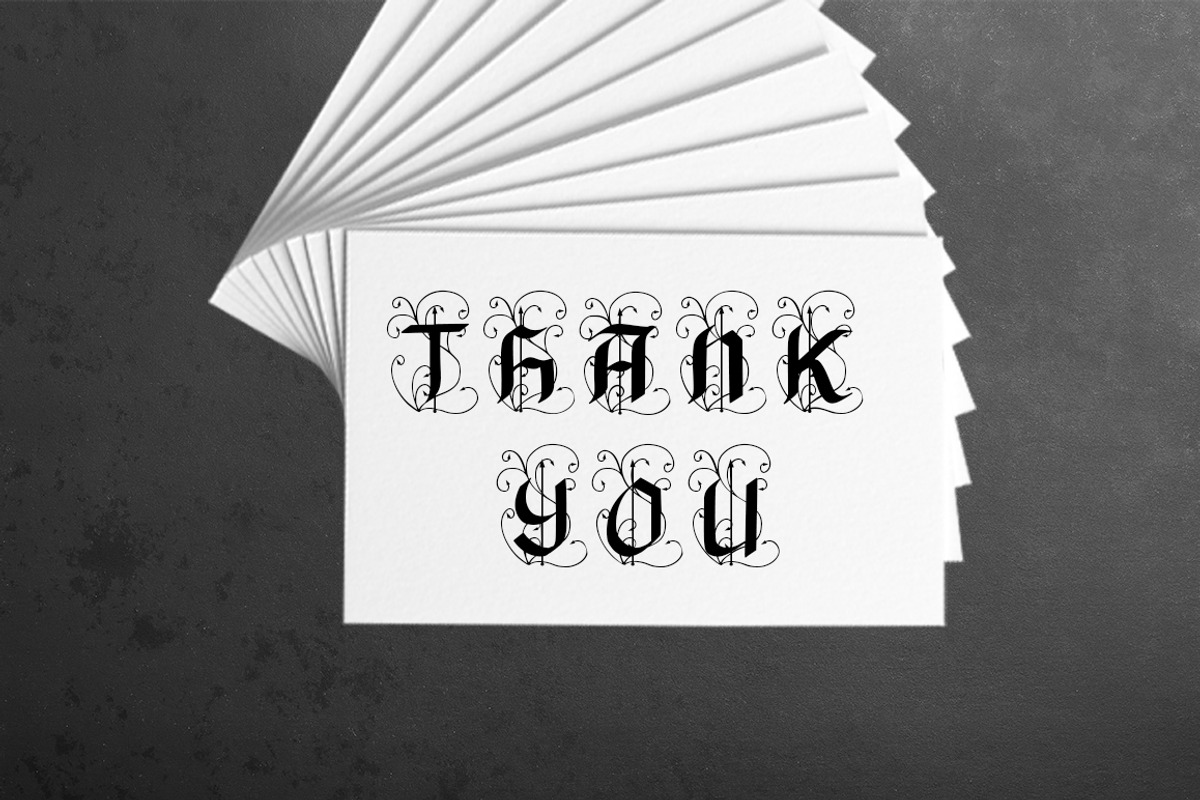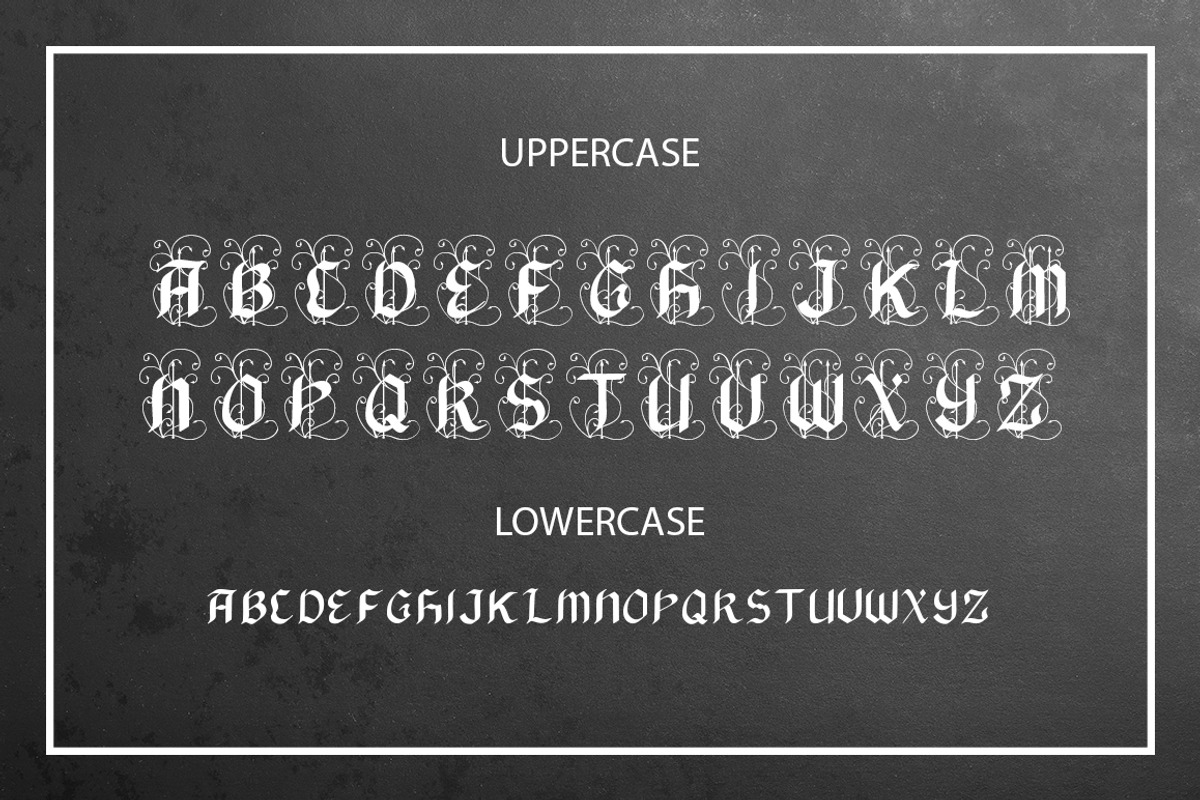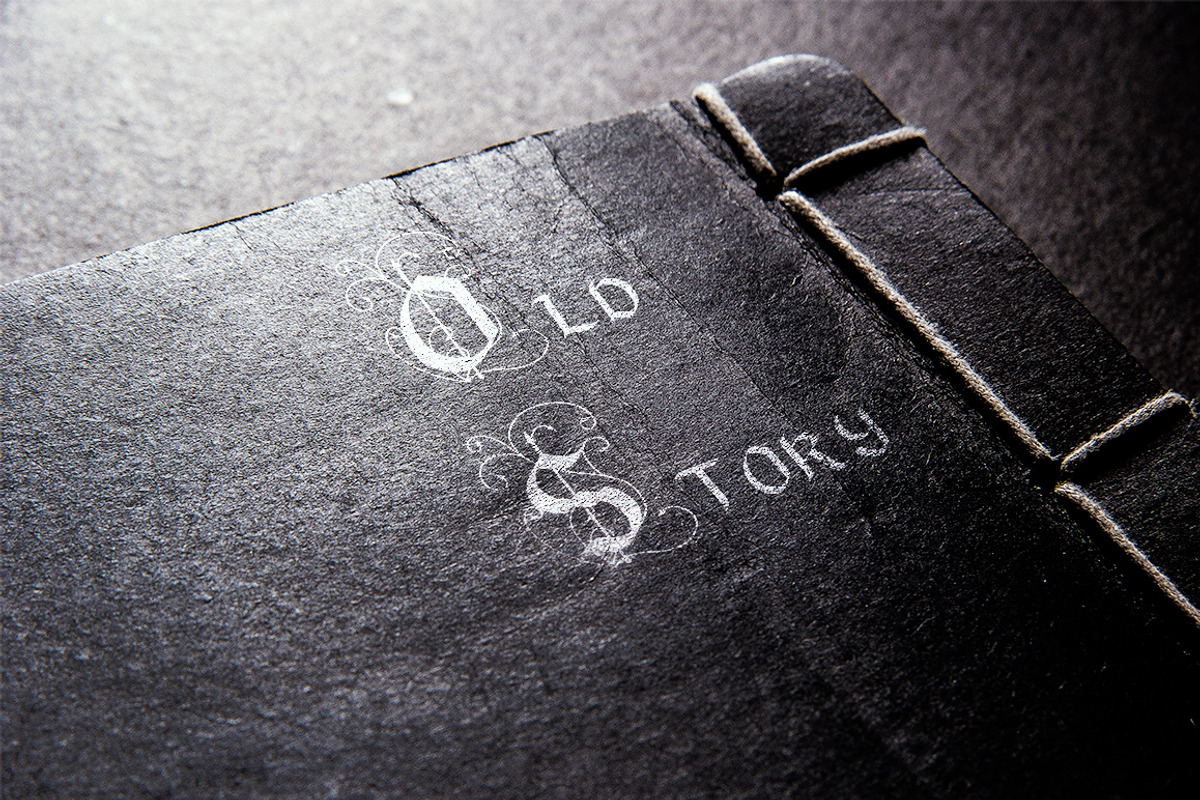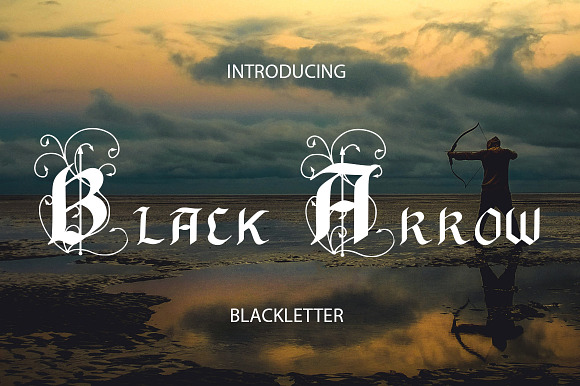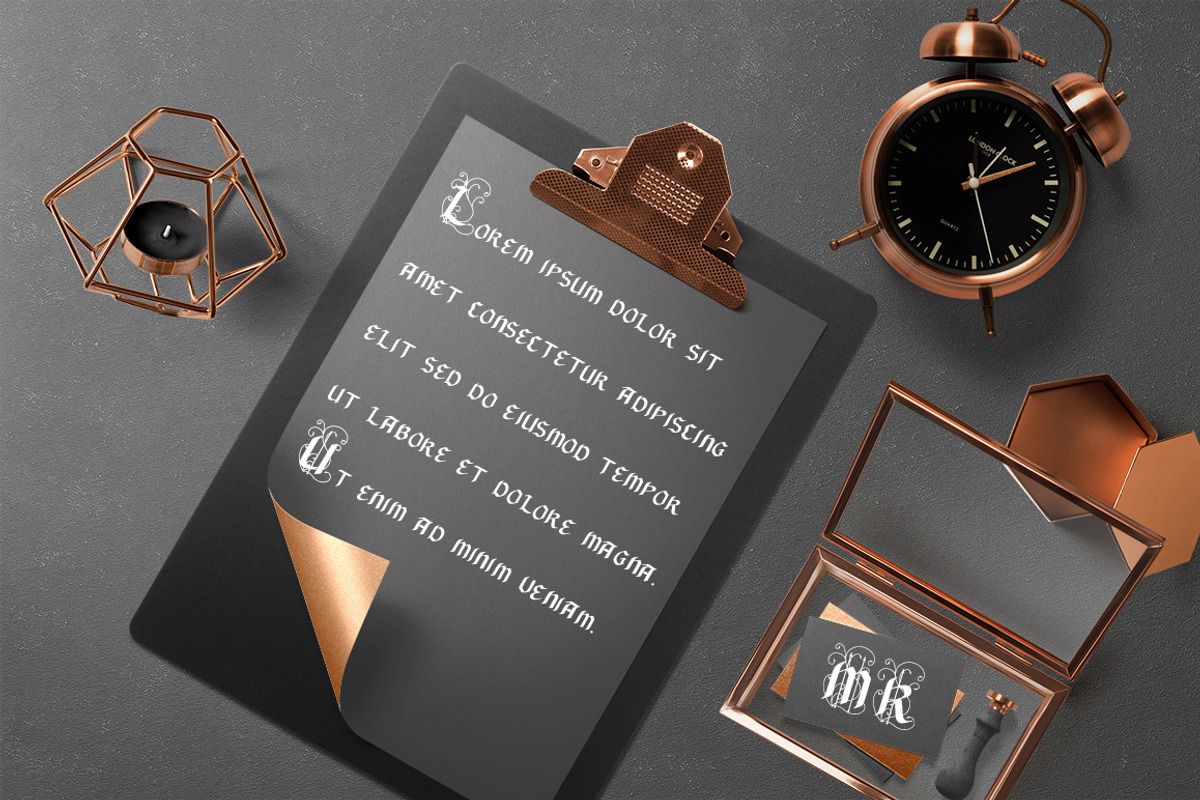
Black Arrow blackletter font
Black Arrow blackletter font with simple, minimalistic, retro and vintage feel. Includes a full set of capital and lowercase letters.
- Includes a full set of capital and lowercase letters.
Black Arrow blackletter font by Gennadi Digital Studio fits naturally into Branding, posters, packaging, typography.